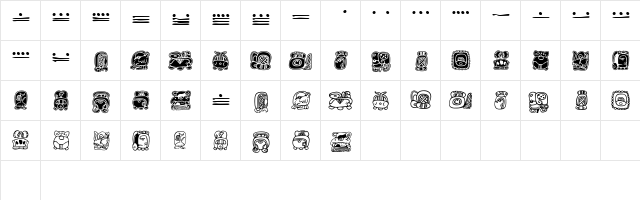
MayaMonthGlyphs Regular Free Font
MayaMonthGlyphs Regular
Design Context for MayaMonthGlyphs
MayaMonthGlyphs is a composed and adaptable typeface that performs quietly and consistently across a wide range of design contexts.